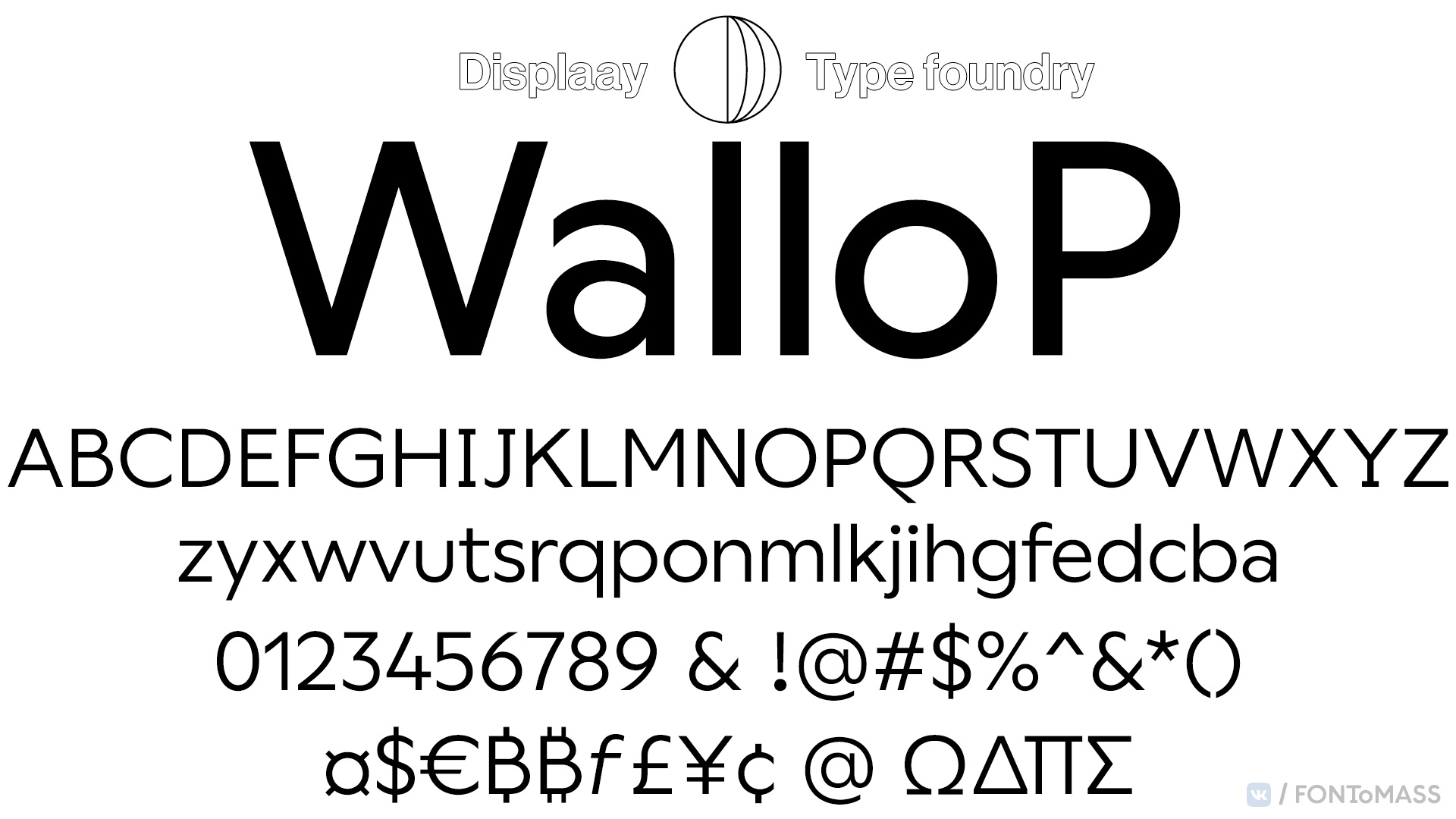
Wallop Font
Wallop Font is perfect for bold headlines, poster designs, branding projects, social media graphics, and editorial layouts. Its strong, attention-grabbing style makes it ideal for projects that need impact and personality.
What makes Wallop Font exciting is its dynamic letterforms and unique proportions, which create a sense of movement and energy. The font’s playful yet confident design ensures your text stands out while remaining highly readable.
The Wallop Font family includes Regular, Bold, Italic, and Outline styles, giving designers flexibility to create expressive and cohesive typographic compositions.